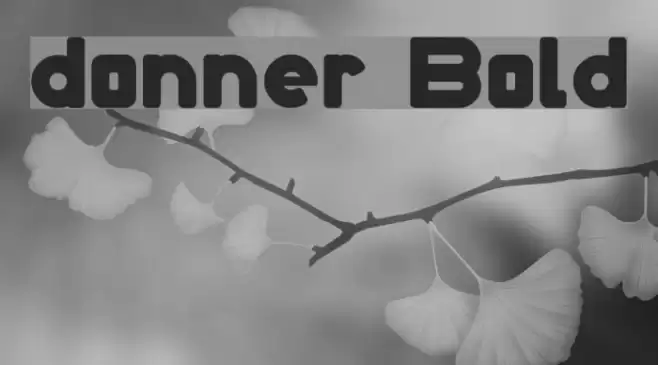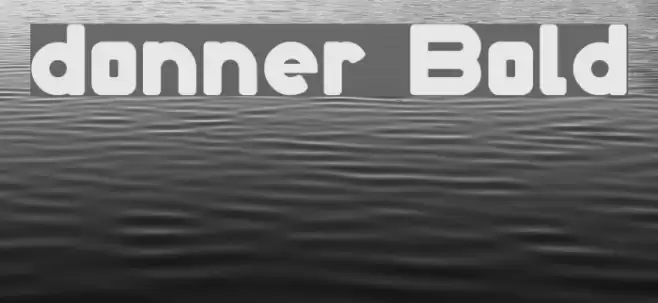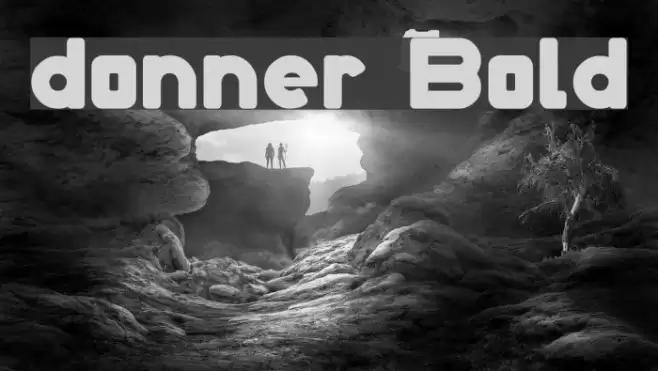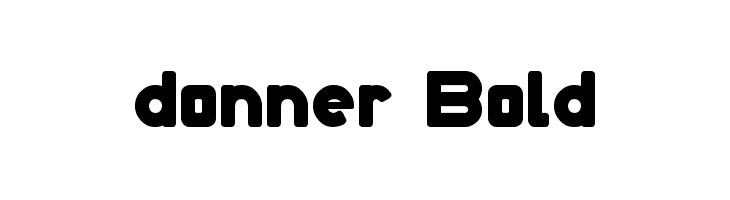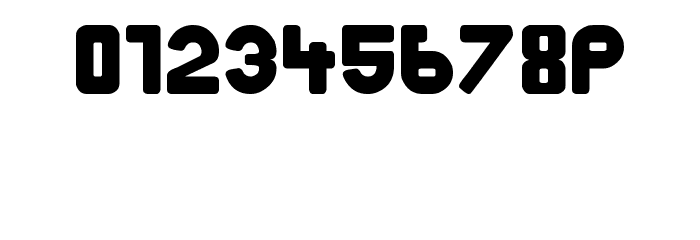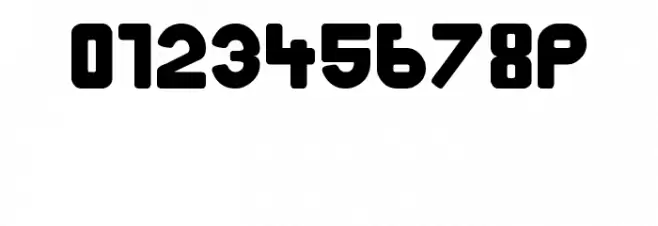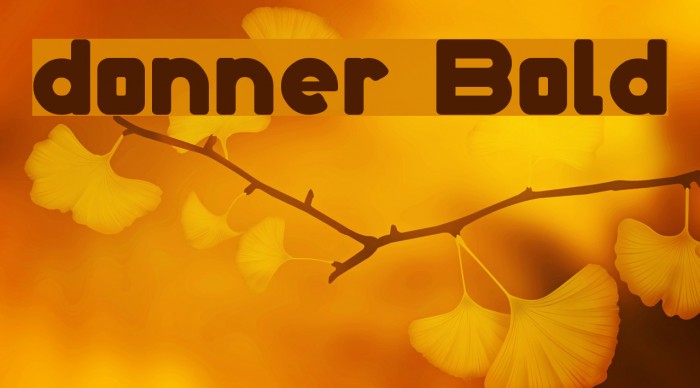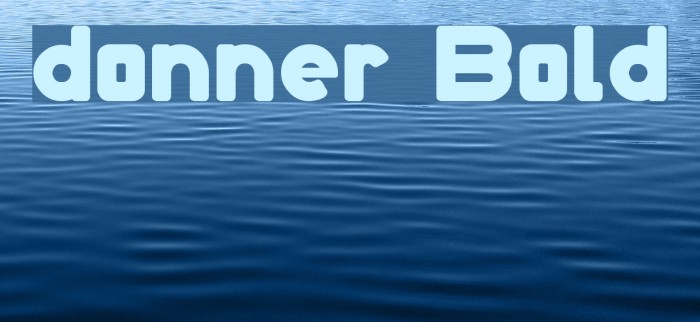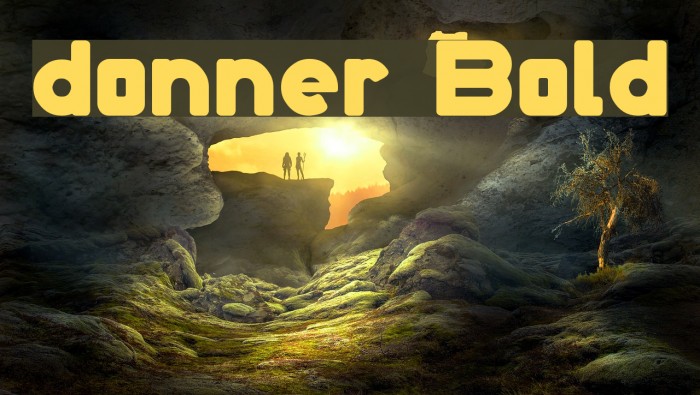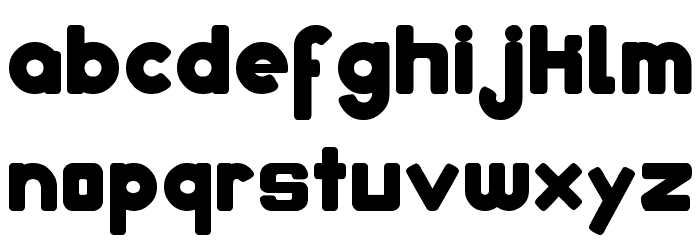
donner Bold Font
donner Bold Description
This font features a bold and rounded style, characterized by its thick, uniform strokes and smooth curves. The letters are evenly spaced, providing a clean and modern appearance. The uppercase and lowercase characters maintain a consistent design, with a playful yet structured look. The numerals and special characters follow the same aesthetic, ensuring a cohesive visual experience across all text elements. Its boldness and rounded edges make it suitable for attention-grabbing designs, while its simplicity ensures readability.
A bold, rounded font with smooth curves and uniform strokes from Uncategorized fonts.